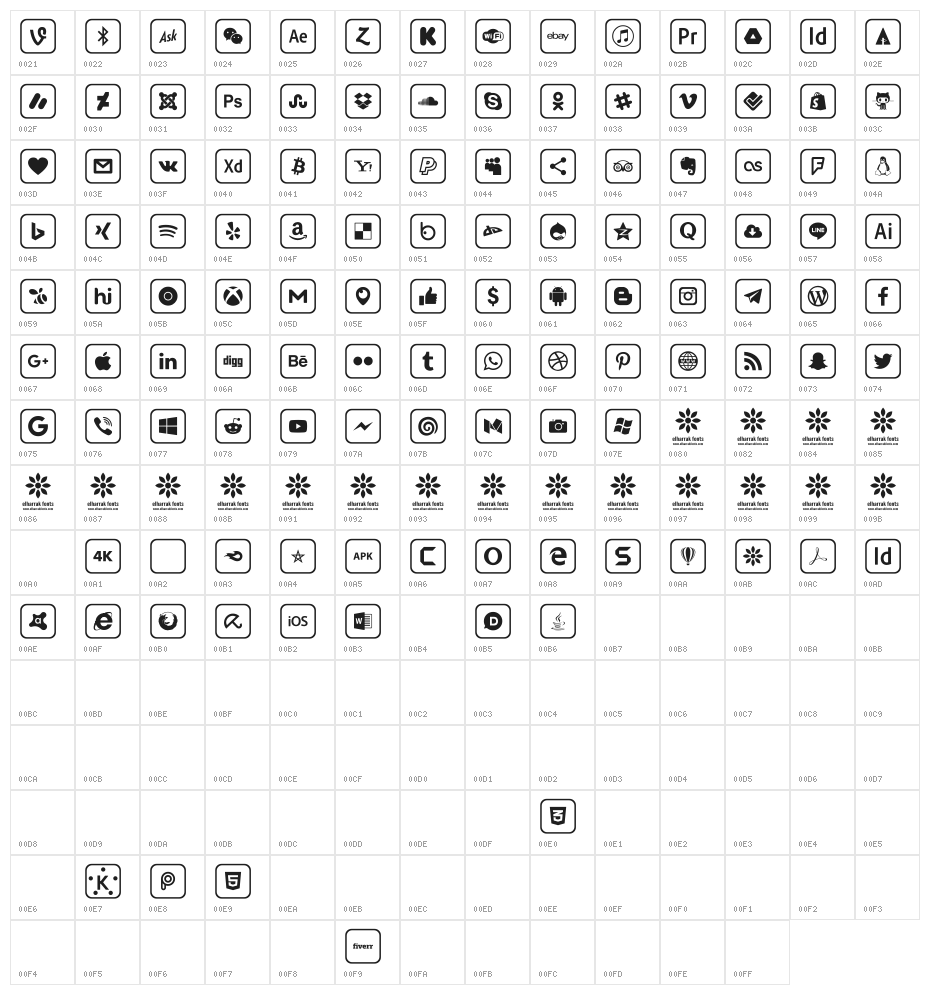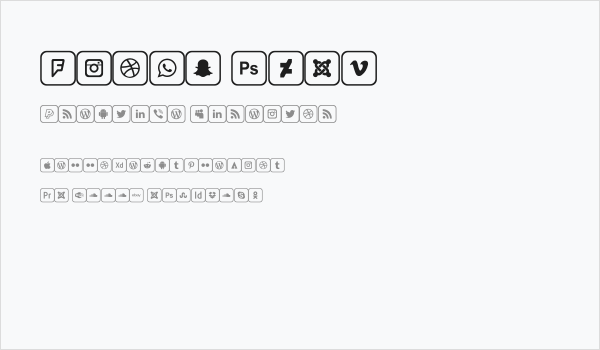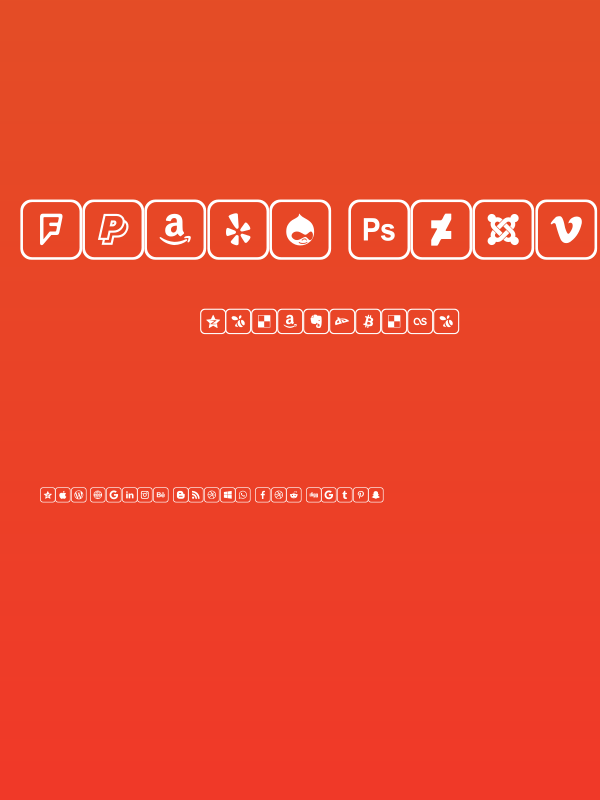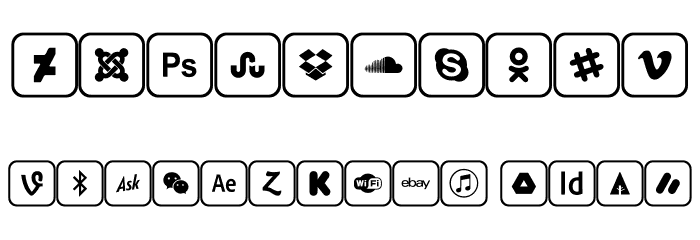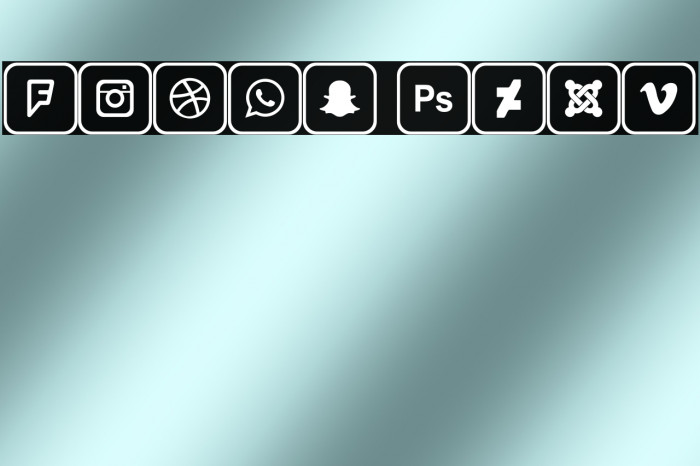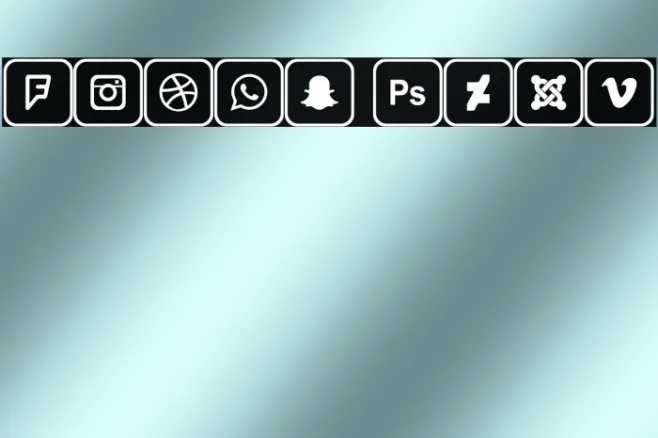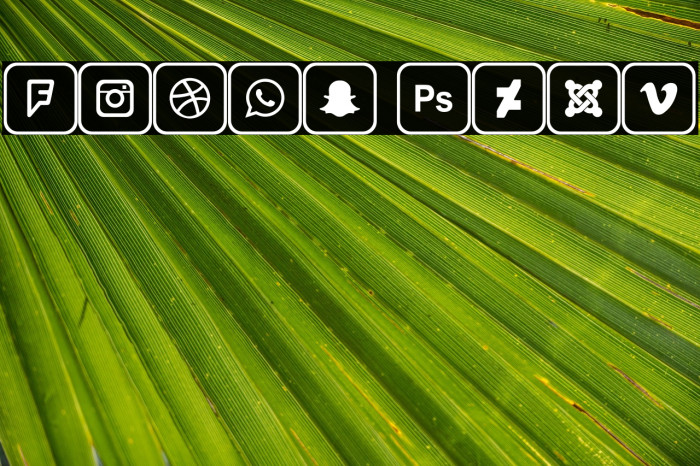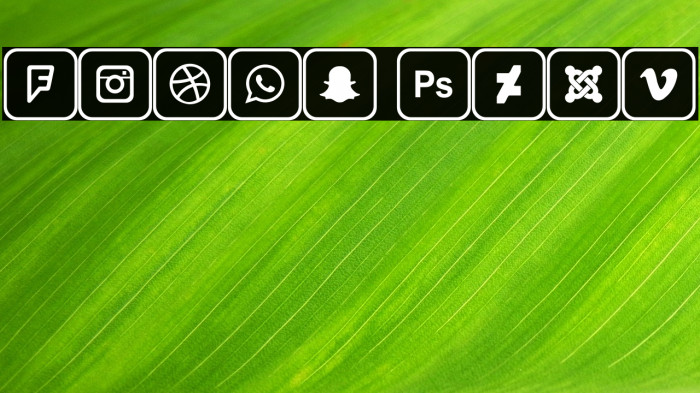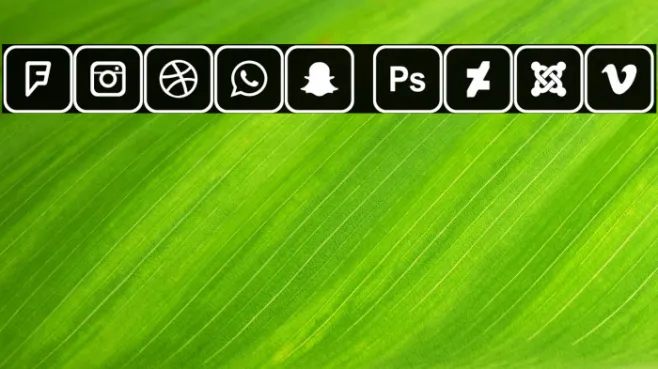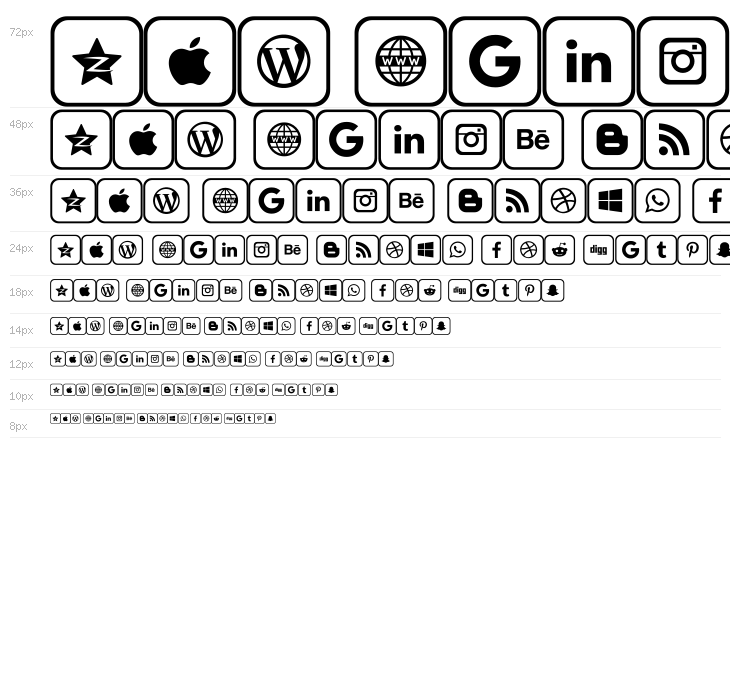
Icons 2019 Font
Icons 2019 Description
A collection of monochrome social media and tech brand icons, each enclosed in rounded square borders, featuring consistent line thickness and simplified, recognizable logos.
| Overall Style | Modern, Minimalist |
| Use Case | Icons, UI elements, Social media links |
| Proposed Projects | App interfaces, website footers, social media links, presentations, icon sets, UI/UX mockups. |